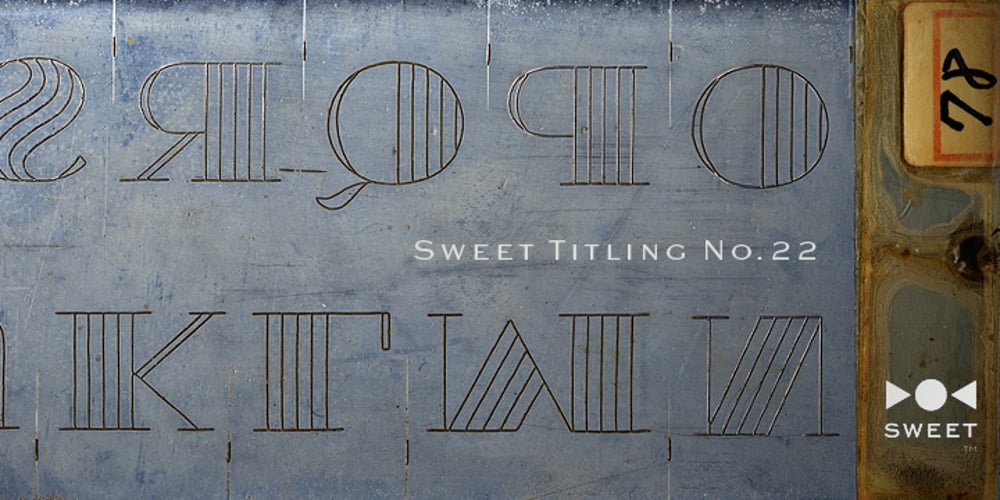
Sweet Titling No. 22 Font Family was designed by Mark van Bronkhorst and published by Sweet. Sweet Titling No. 22 contains 2 styles and family package options. Sweet Titling No. 22 is part of the Sweet Collection of engraved lettering styles from the 20th Century, published by MVB Fonts. This obscure, art deco design would have been used for engraved letterhead, business cards, etc., and likely first appeared in the 1920s or ’30s.